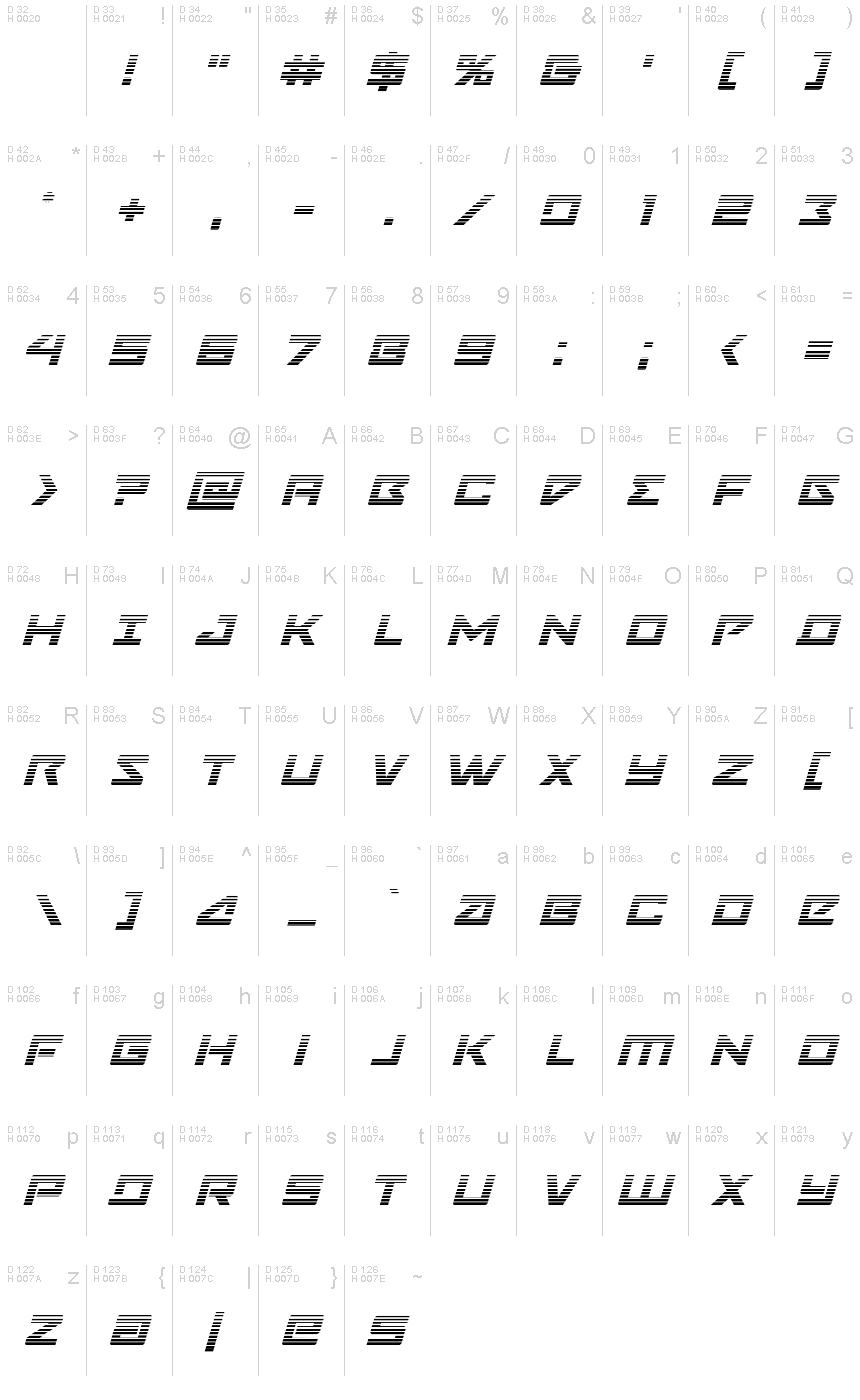
Navy Cadet Gradient Italic
Navy Cadet Gradient Italic is a futuristic, expanded display font crafted by Daniel Zadorozny. Its bold, distinctive letterforms exude a sense of strength and modernity, making it an ideal choice for headlines, branding, and eye-catching typographic compositions. The gradient effect adds depth and visual interest, lending the font a dynamic, dimensional quality that can elevate any design project. With its clean lines and geometric aesthetic, Navy Cadet Gradient Italic effortlessly bridges the gap between classic and contemporary, allowing designers to create impactful, forward-thinking typographic solutions across a variety of media.
This font's versatility shines through its suitability for diverse applications, from product packaging and editorial layouts to digital interfaces and large-scale signage. Its powerful presence and compelling character make it a standout choice for designers seeking to infuse their work with a bold, futuristic flair.